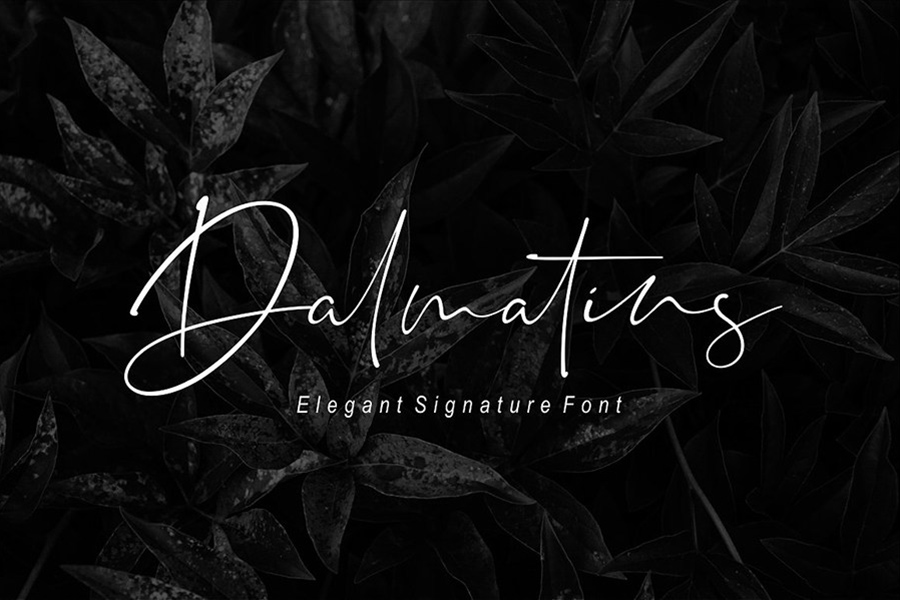
Dalmatins Signature Font
Dalmatins Signature Font is the part of a new modern signature with elegant lines. With its personal touch, Dalmatins is perfect for your personal branding and any other awesome design project. It works great on logos, invitations, social media posts, advertisements, product packaging, product designs, labels, photography, watermarks and much more! This demo only includes basic characters and personal license. To access more features and use it for commercial purpose get the full version too. The free font is created by Sronstudio and can be downloaded on Free Design Resources.